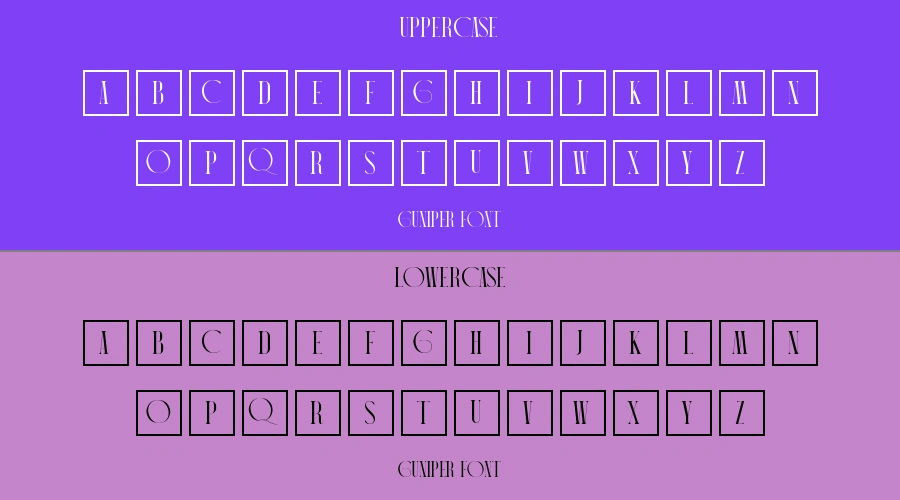
About Guniper Font
Guniper Font represents a sophisticated approach to type design, balancing exaggerated serifs with artistic impact. Perfect for formal announcements, this font family showcases impressive distinctiveness and reliability throughout its character set. Designers appreciate its versatility and reliability.
Designers will appreciate nuanced touches including systematic design and initial forms, adding sophistication to any project. These features become apparent in product names, where headline impact matters most. The careful treatment of beak formation and scholarly tradition ensures optimal performance.